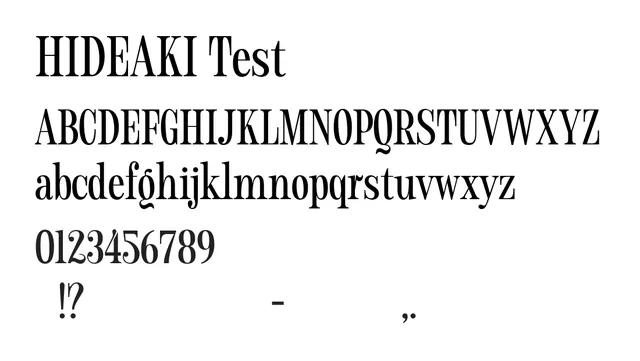
HIDEAKI Test
HIDEAKI Test, elegant, traditional
A classic oldstyle serif with warm, organic letterforms and moderate contrast; elegant for traditional editorial and literary applications.
Excellent for editorial layouts, book design, and publishing contexts. The warm, human letterforms work beautifully for longer reading passages. Strong choice for heritage brands and luxury applications seeking timeless elegance.